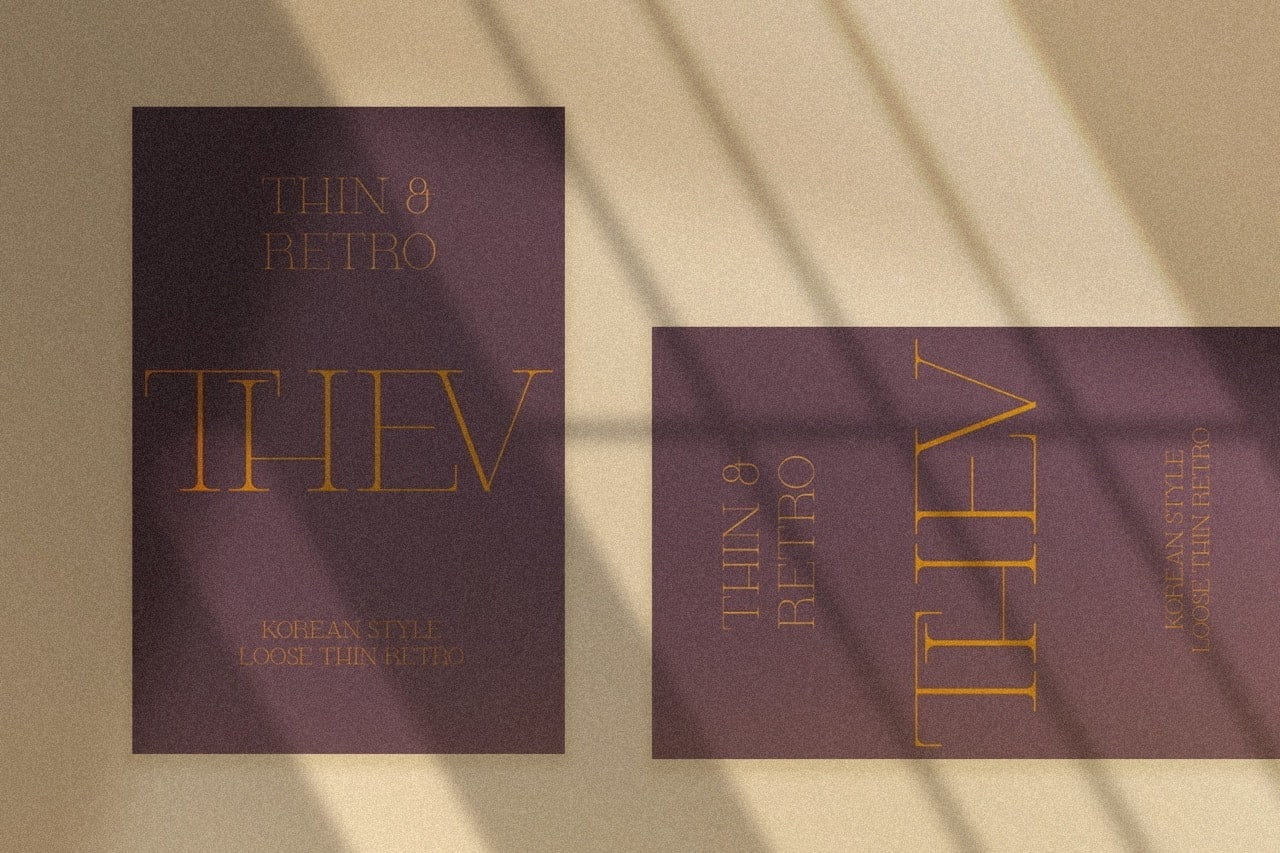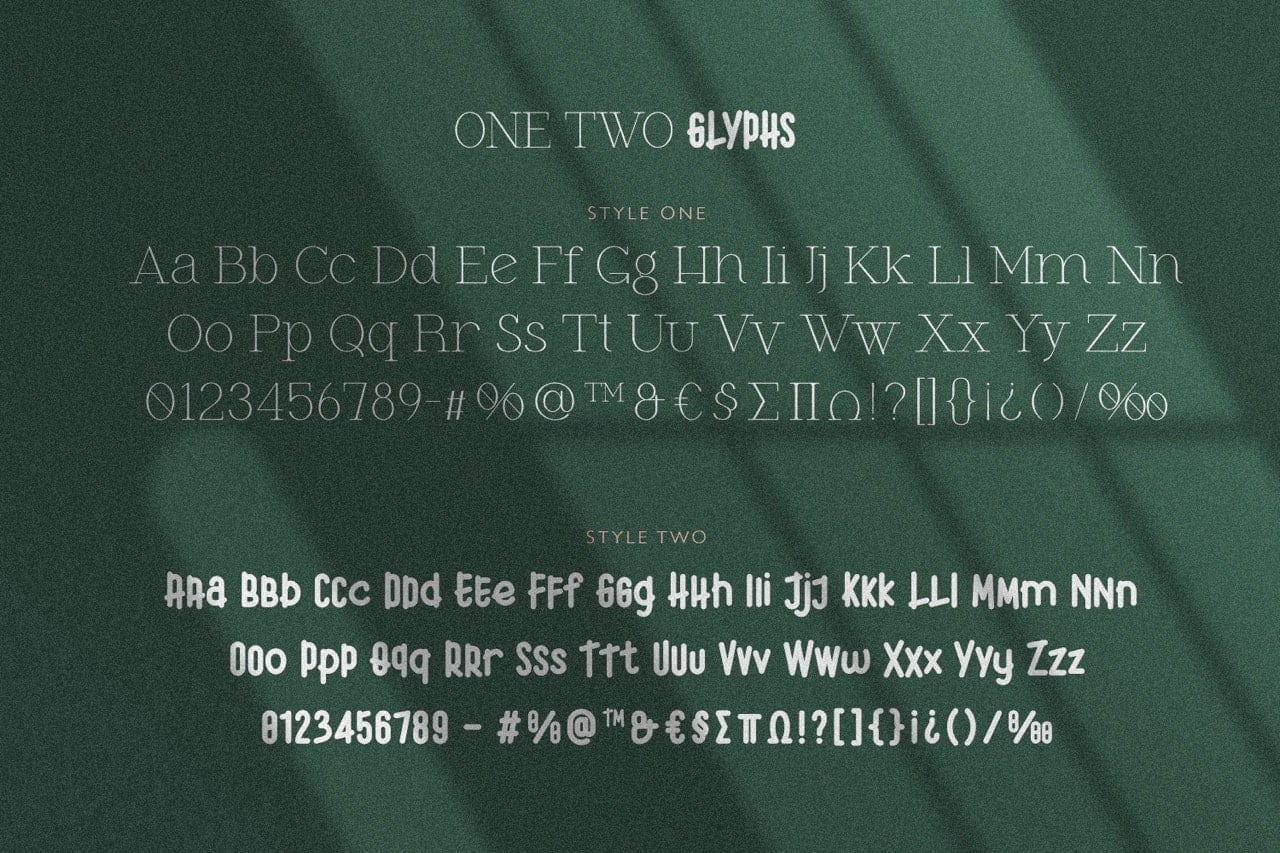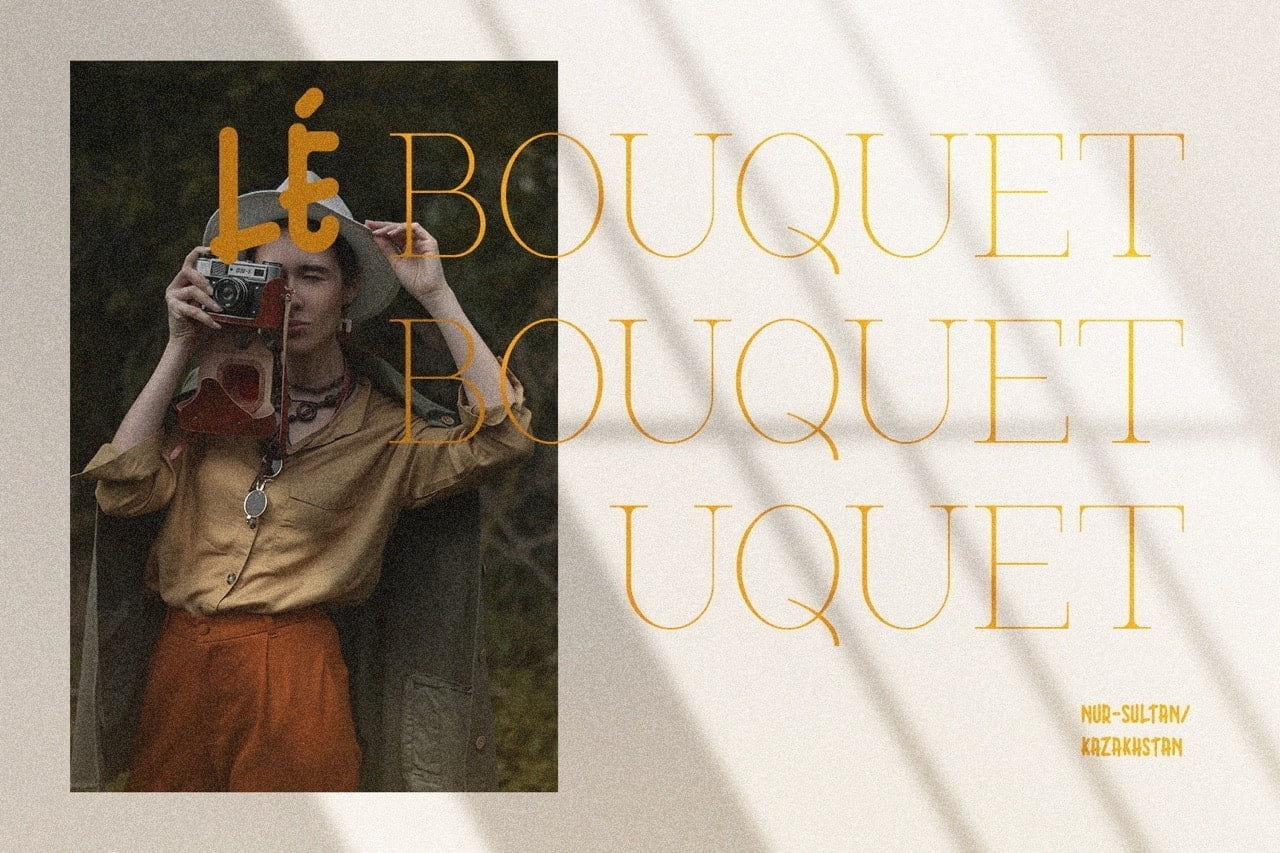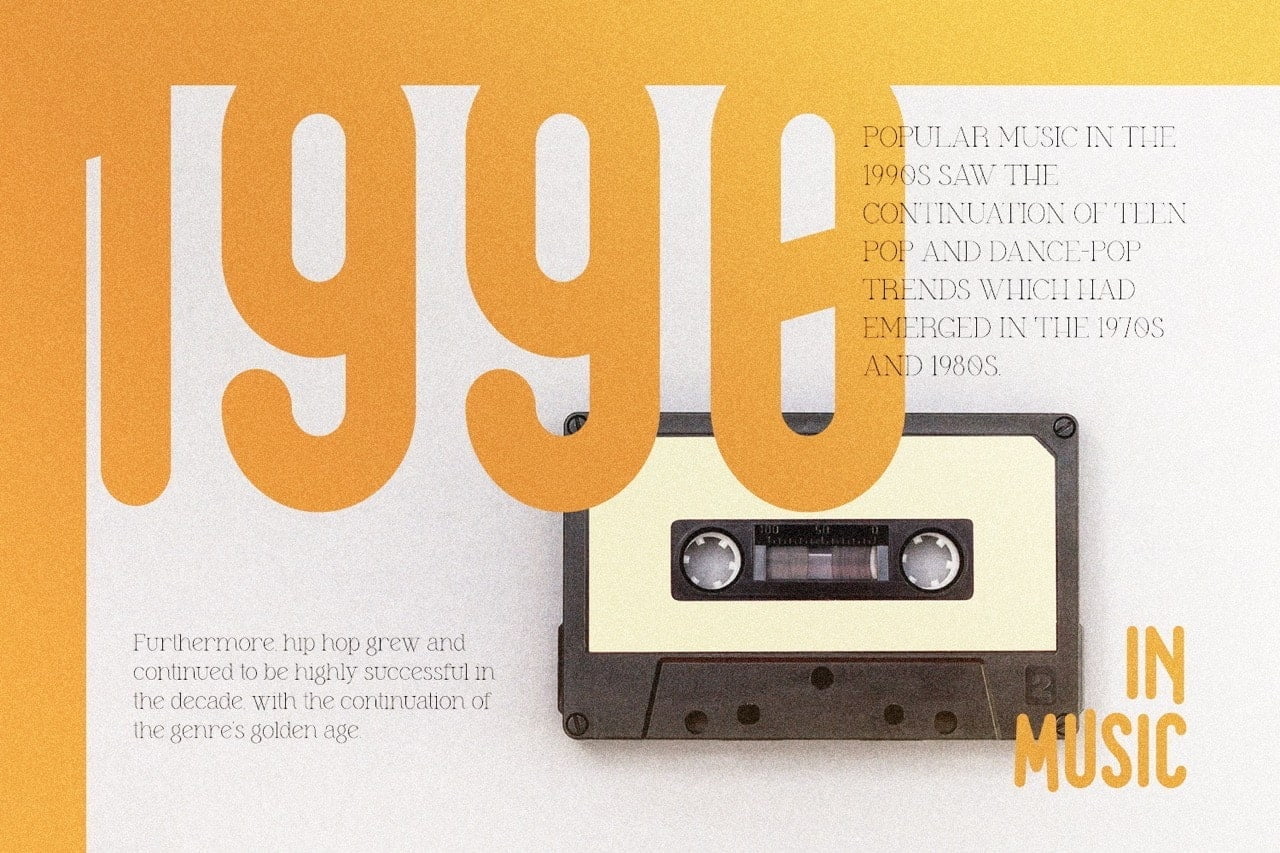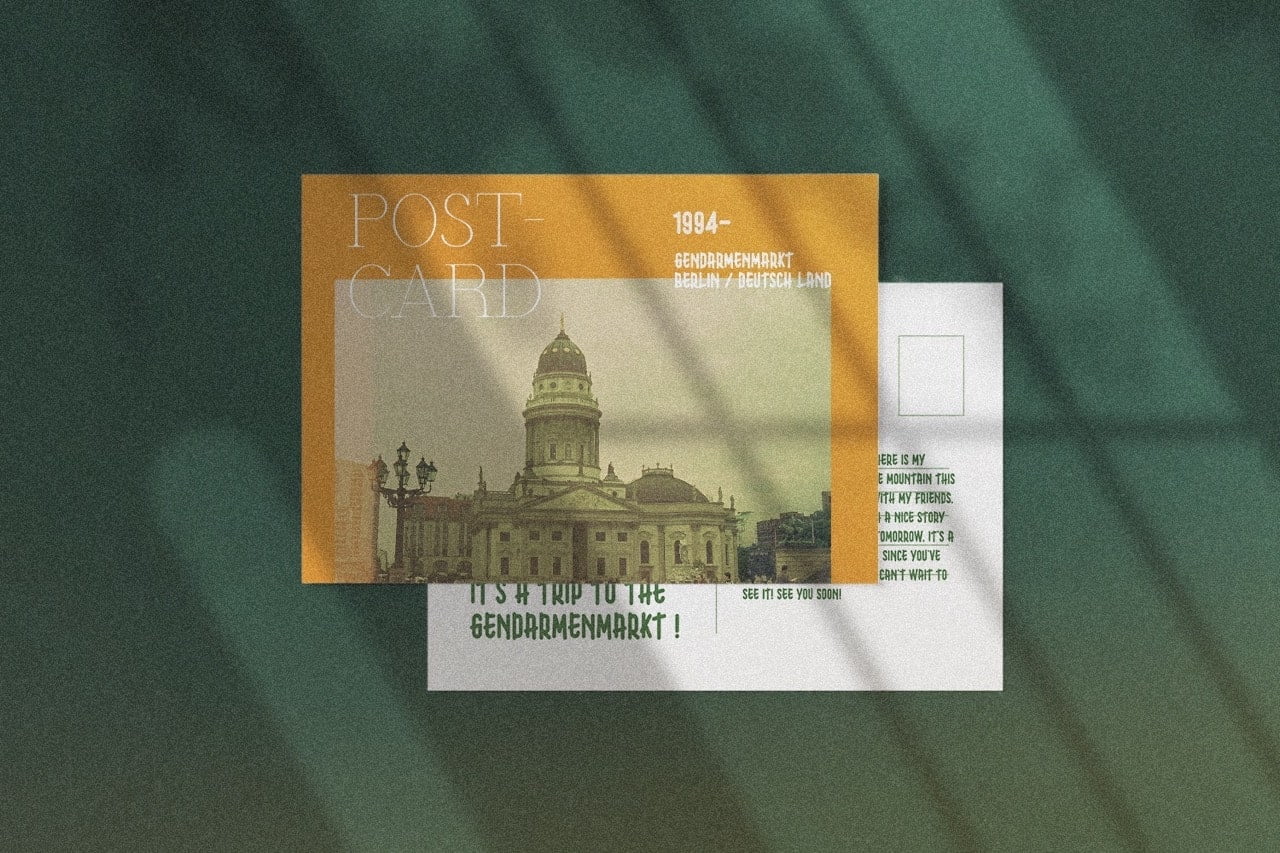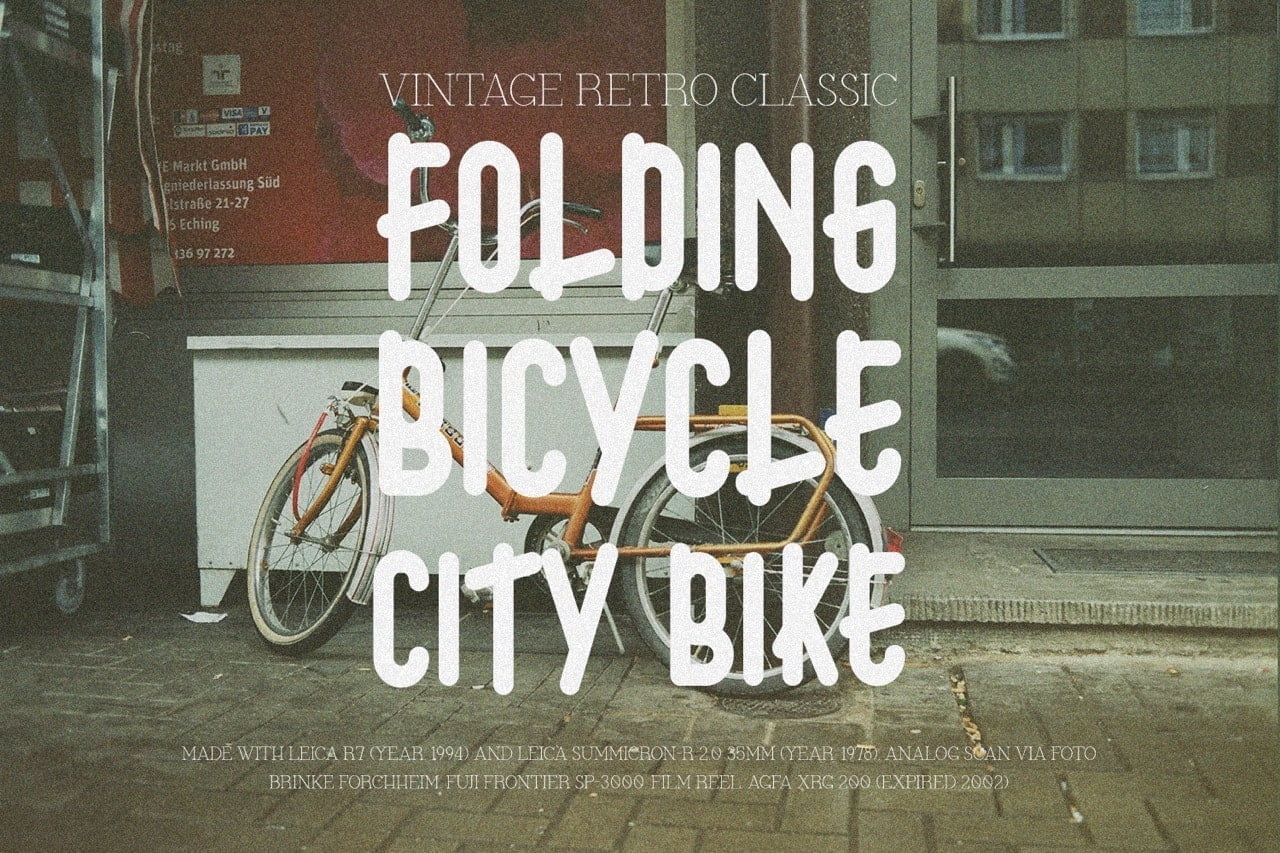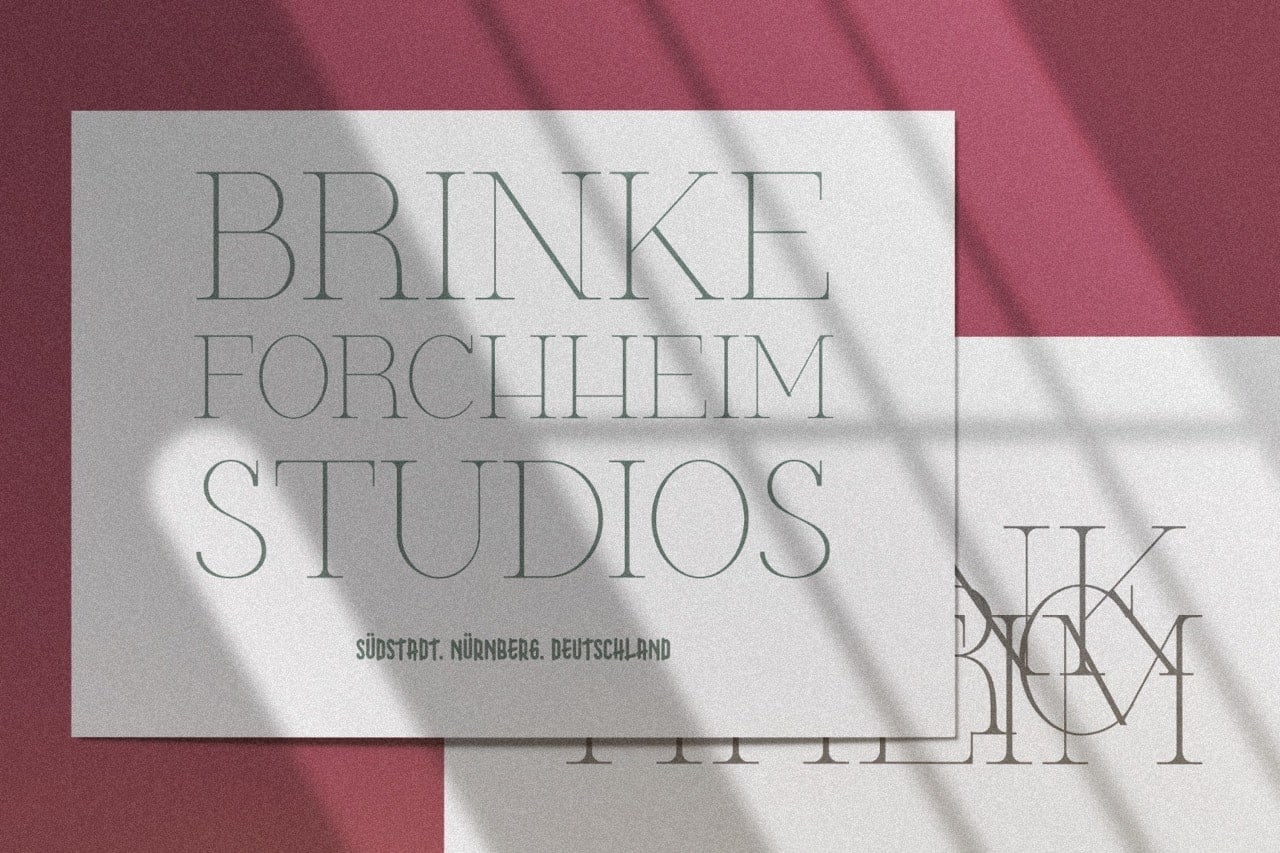
TwoOne is a casual and stylish serif typeface with handwritten elements, perfect for hand drawn designs, logos and vintage labels! The alternate letters are perfect for large print projects, while the ligature fonts will be useful when adding a handmade feel to your work.
- 2 Styles (Serif and Handwritten)
- Stylistic Ligatures and Alternate Glyphs
TwoOne Font Duo